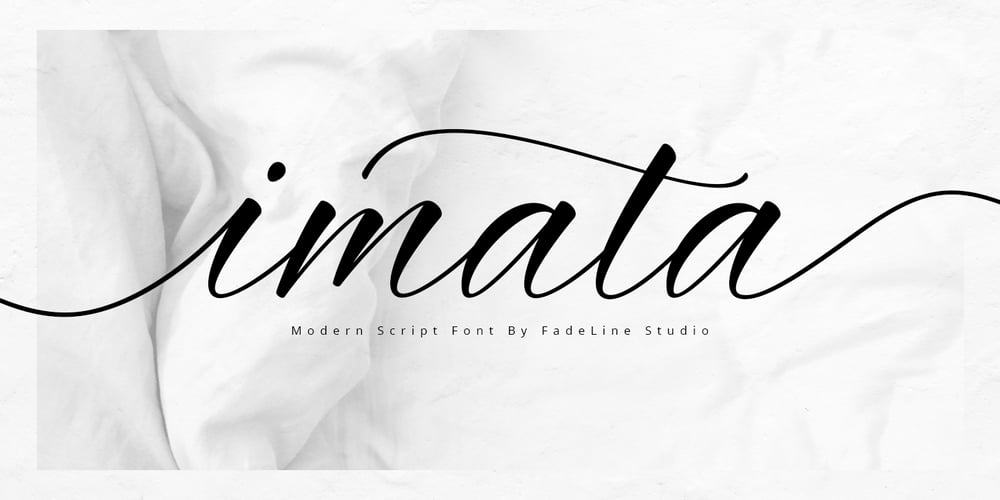
Imata
Imata font
Imata Font Family was designed by Juni Fadil Putra and published by FadeLine Studio. Imata contains 1 styles and family package options. Imata Script is a new modern calligraphy script in an elegant italic style, and contains soft and neat glyph characters.